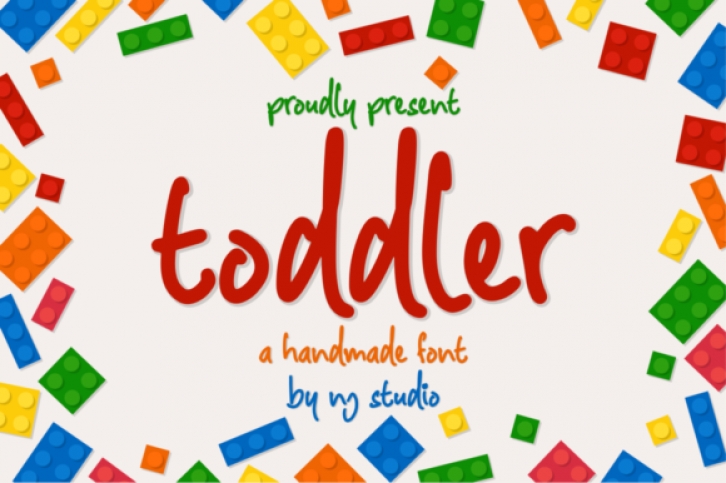
Toddler is a cute and colorful handwritten font. It will add an incredibly joyful touch to your designs. Add this beautiful font to each of your creative ideas and notice how it makes them stand out!